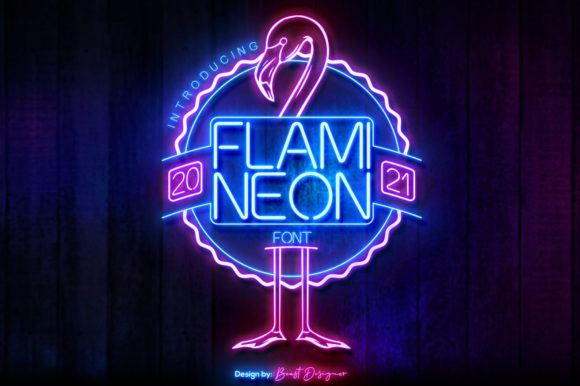
Step into the captivating world of Flami Neon, a font family that radiates with retro charm and a touch of spooky delight. Crafted by the talented Beast Designer, this display font is not just a lettering style; it's a gateway to unleashing your creativity and leaving a lasting impression on your audience.
Imagine the spine-tingling effect of a Halloween sign adorned with Flami Neon's eerie glow, inviting trick-or-treaters into a realm of mystery and excitement. Let your words dance across the page, imbued with an otherworldly charm that captivates and enchants.
With Flami Neon, your designs will transcend the ordinary and take on a life of their own. Its simple, yet striking letterforms possess an inherent versatility, effortlessly adapting to any theme or style. Whether you're conjuring up spooky invitations, crafting haunting posters, or designing social media graphics that send shivers down the spine, Flami Neon is your ultimate companion.
Flami Neon's retro aesthetic evokes a sense of nostalgia, harkening back to a time when neon lights illuminated the night and the thrill of the unknown filled the air. Its clean lines and smooth curves create a captivating visual flow that draws the eye and commands attention.
But Flami Neon is more than just a font; it's an expression of your individuality, a reflection of your unique style. Let its enchanting aura illuminate your creative endeavors and leave an unforgettable mark on the world. Embrace the allure of Flami Neon, and experience the magic of typography like never before.